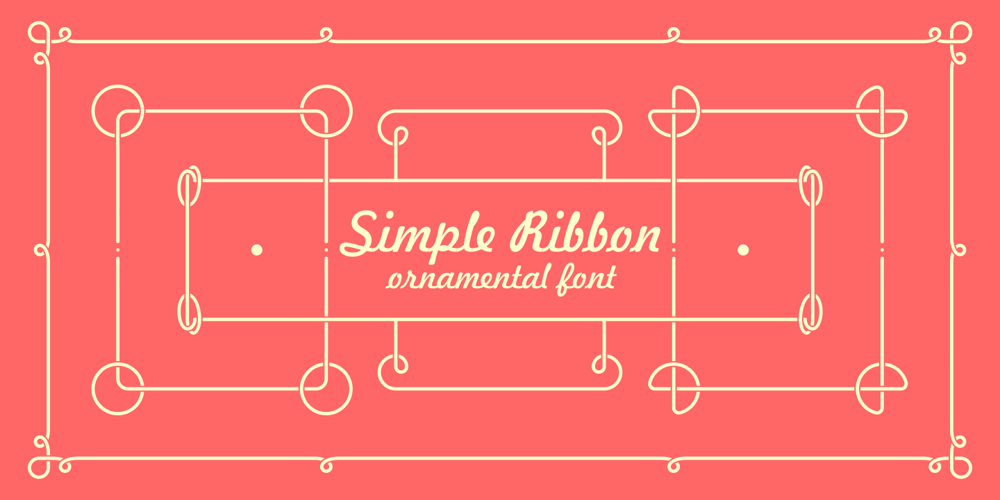
Simple Ribbon
Simple Ribbon font
Simple Ribbon Font Family was designed by Lukyan Turetskyy and published by 2D Typo. Simple Ribbon contains 1 styles and family package options. Ornamental font, based on samples of Alphonse Mucha, who was an Art Nouveau painter and decorative artist. This collection contains simple elegant frames, which are easily assembled from modules in different configurations.